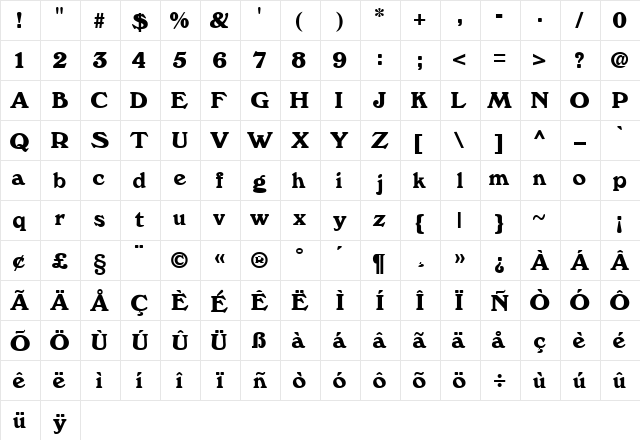
WindsorDemi.fog fog
Design Context for WindsorDemi.fog Typeface
WindsorDemi.fog is a composed and adaptable typeface that performs quietly and consistently across a wide range of design contexts.